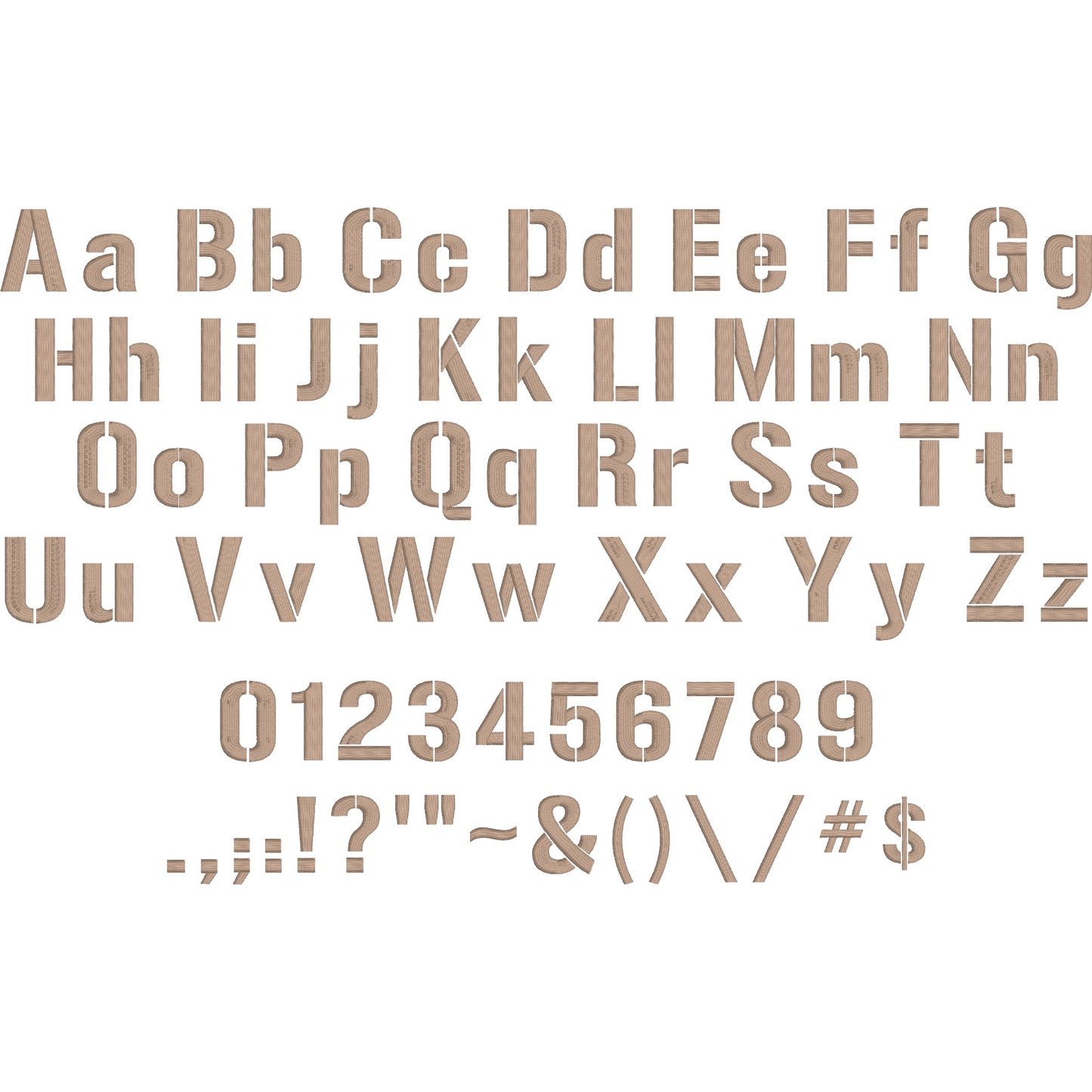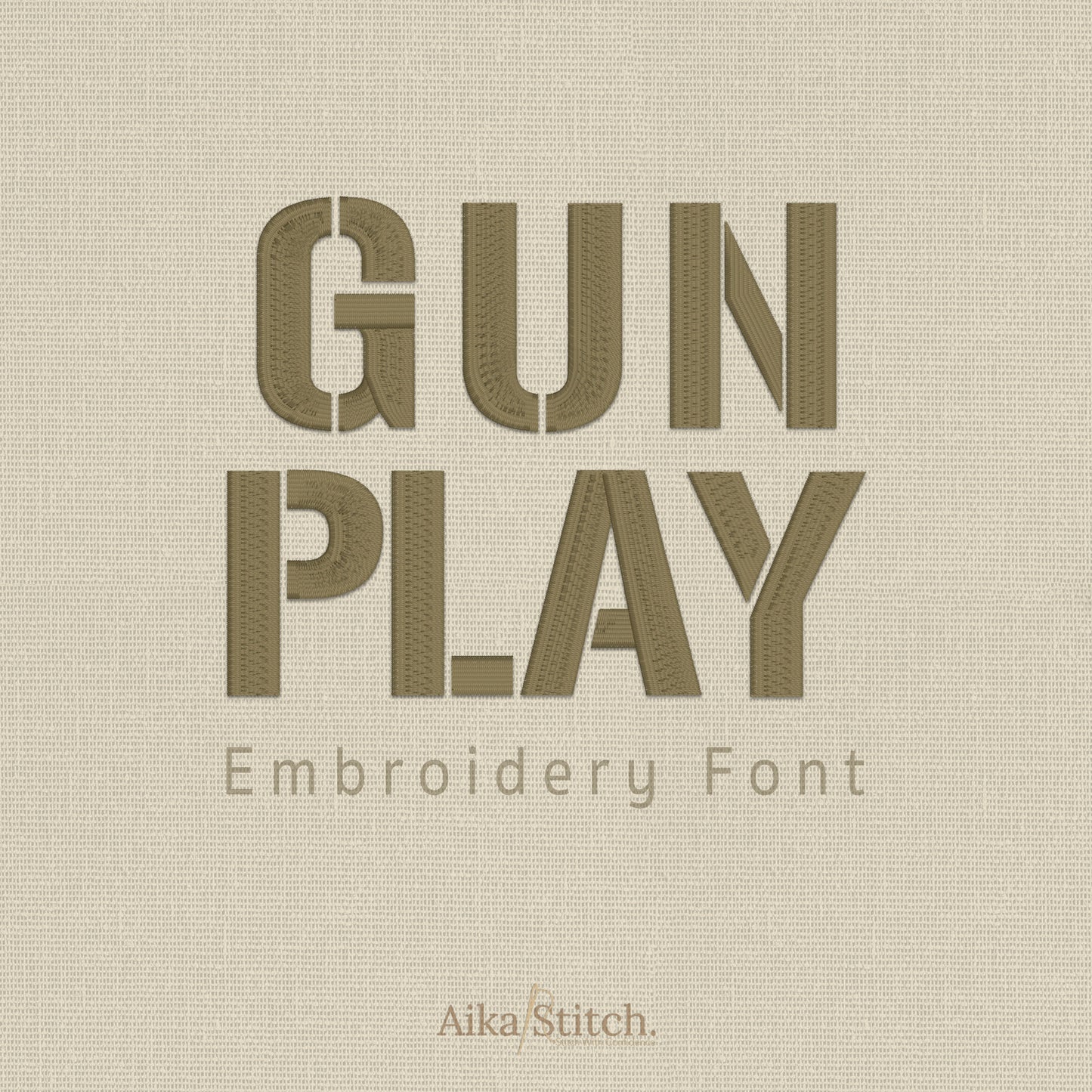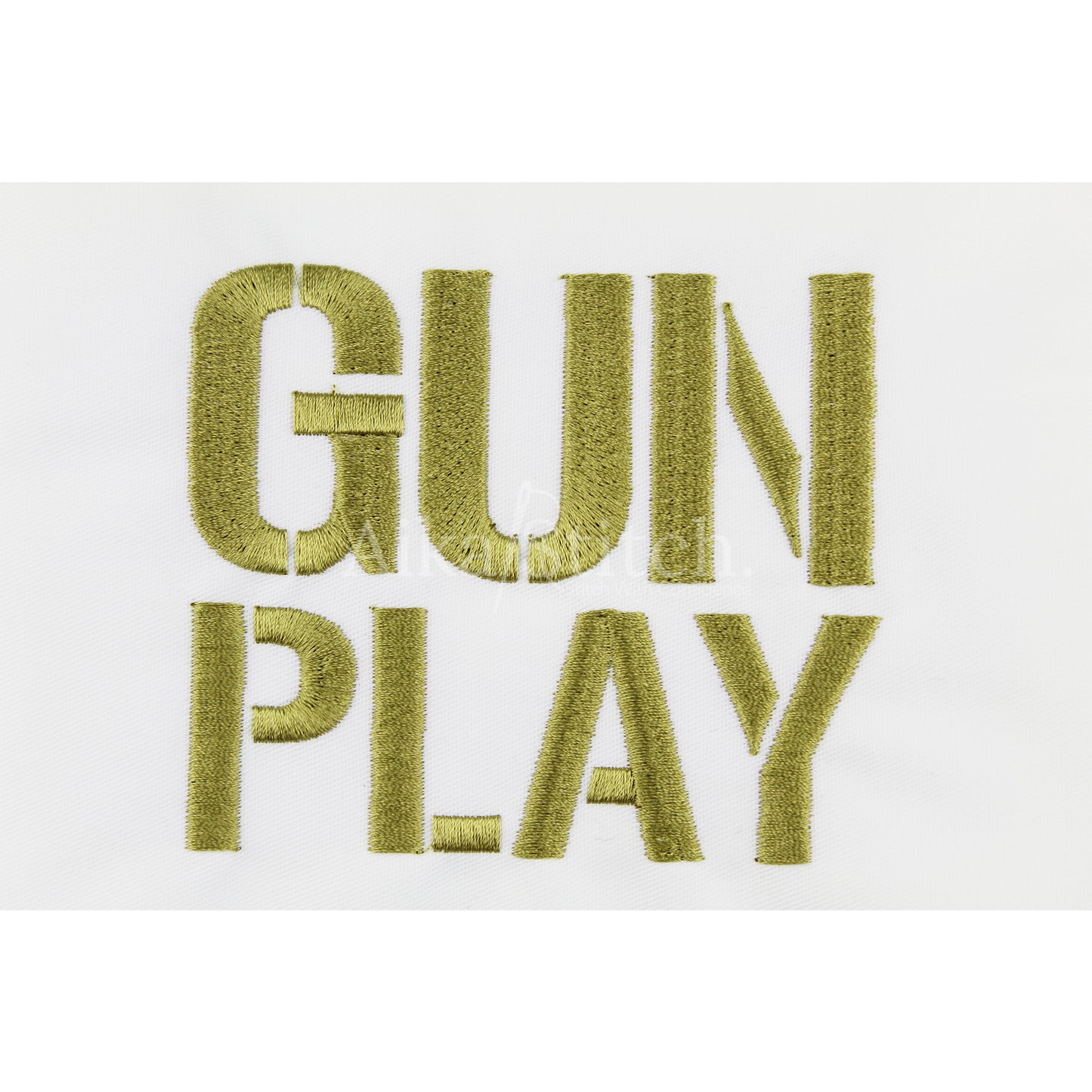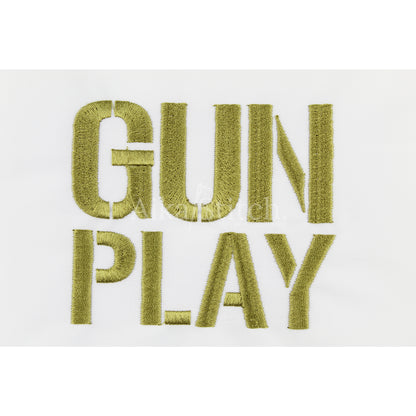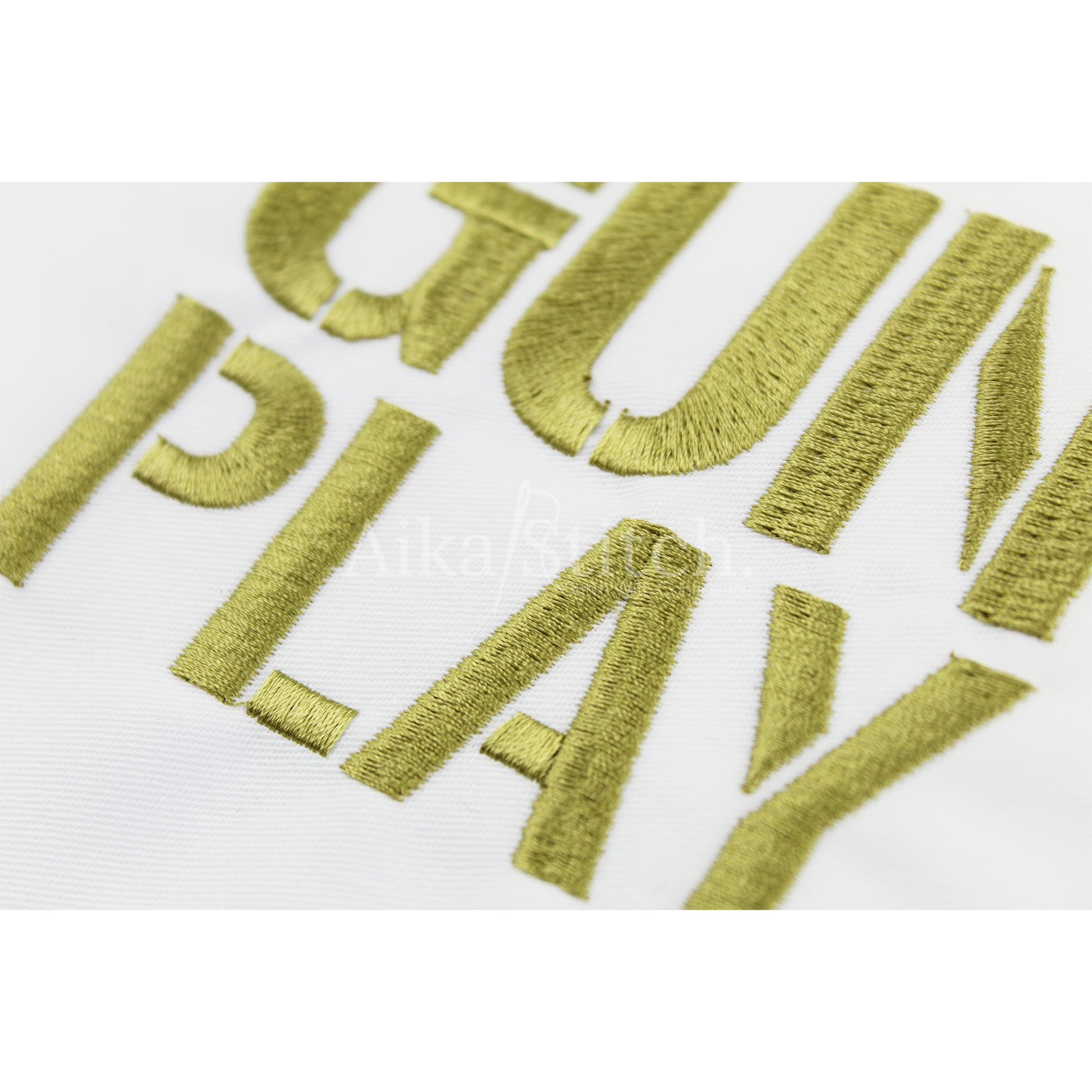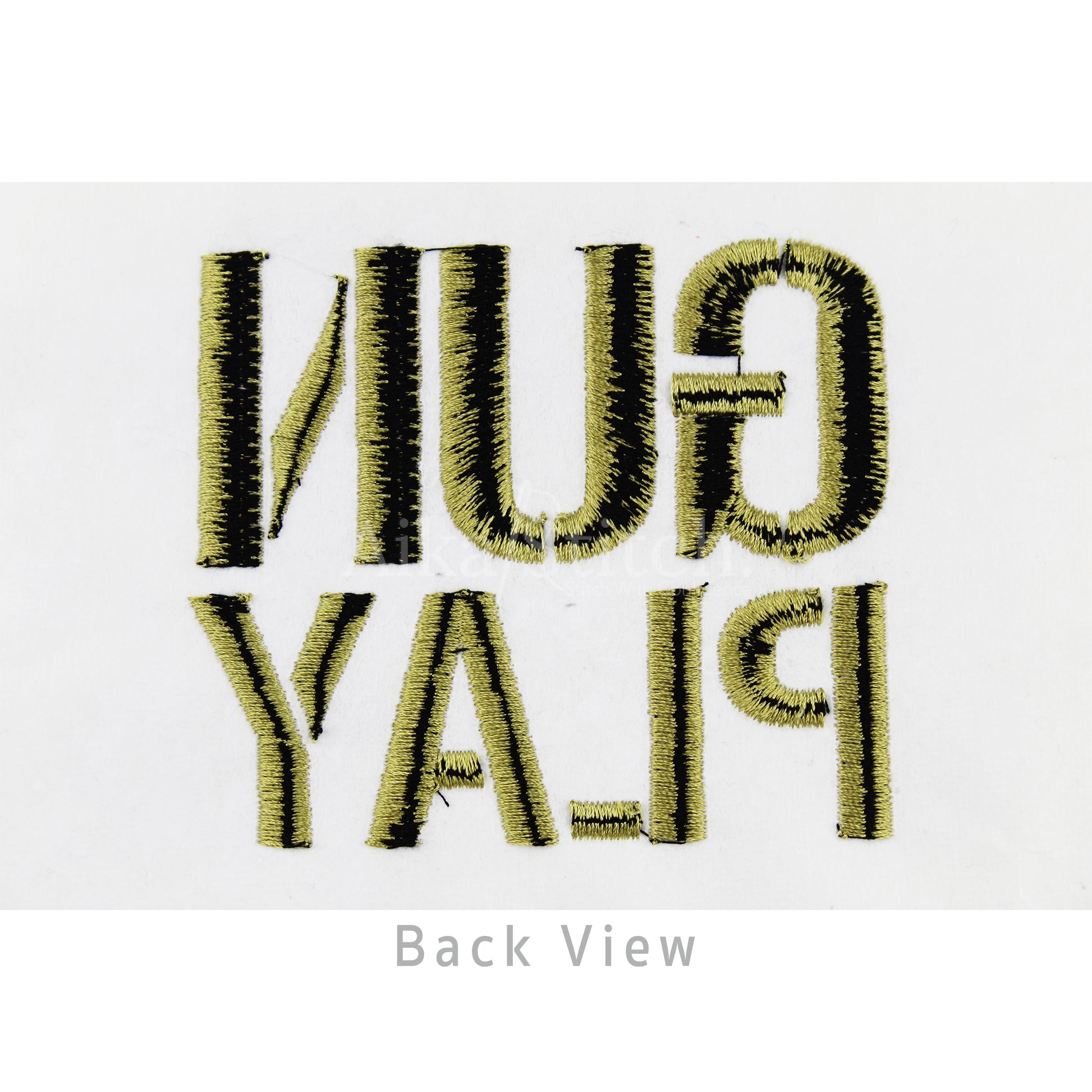
Gun Play Stencil Army Embroidery Font
Gun Play is a Stencil Army machine embroidery font featuring beautiful satin stitch lettering. Perfect for shirts, towels, hats, baby gifts, monograms, and small business embroidery projects.